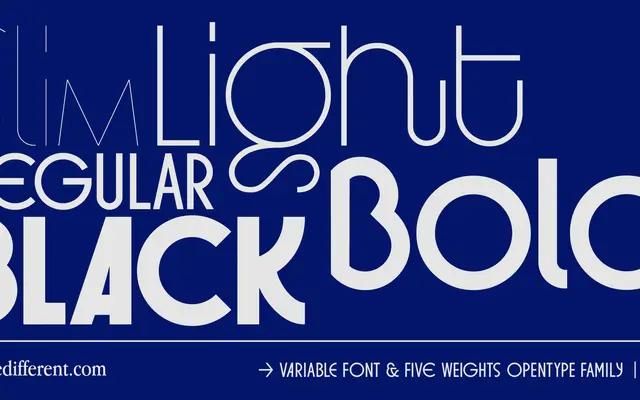
BD Orange
Type Different · 2024
A grotesque sans with calligraphic character, covering Latin, Cyrillic, Greek and Japanese Katakana across five weights including a variable font.
BD Orange blends grotesque structure with scripty detailing, offering a large glyph set of 1025 characters alongside extensive OpenType alternates, discretionary ligatures and a higher x-height variant. Five static weights run from Thin to Black, complemented by a variable font, making it flexible across titling, logotype and body text settings. Its broad language coverage, including uppercase Cyrillic, Greek and Katakana, extends its usefulness across multilingual projects.
Described by the foundry as a 'scripty grotesk', BD Orange is fundamentally a sans-serif grotesque with calligraphic influences and stylistic alternates rather than a true script typeface.